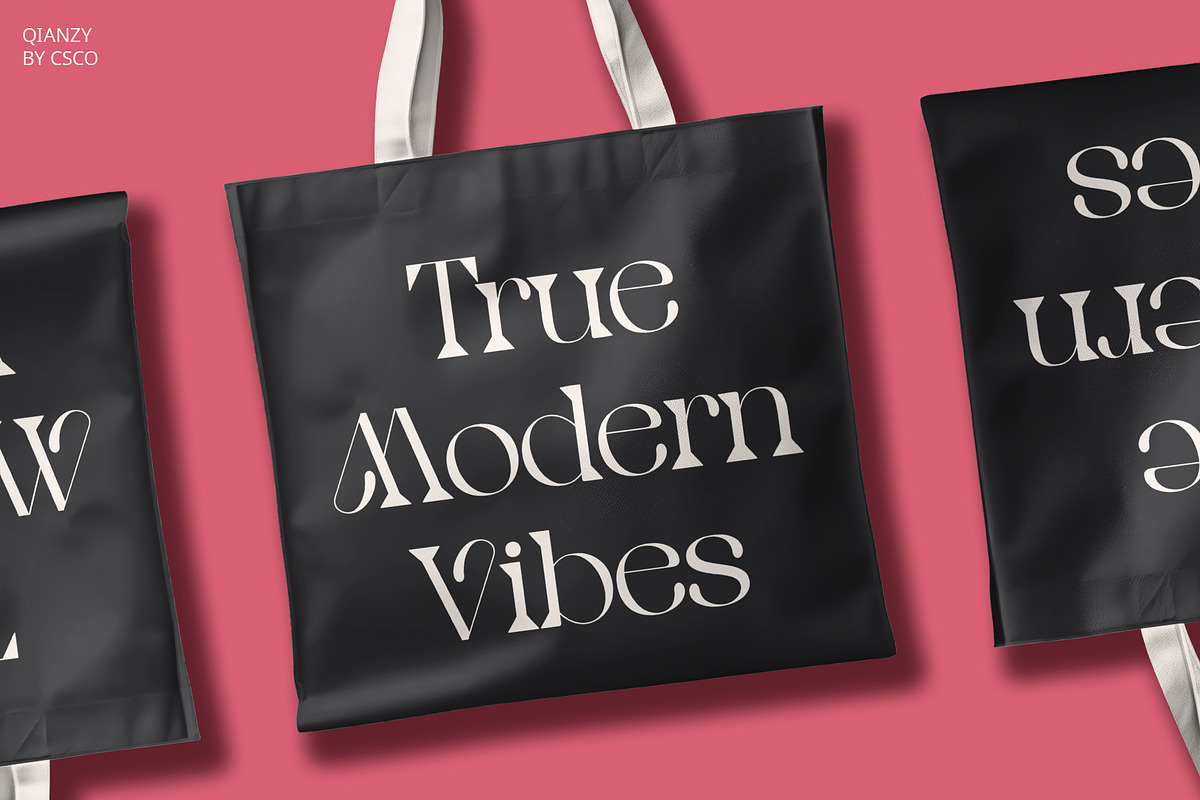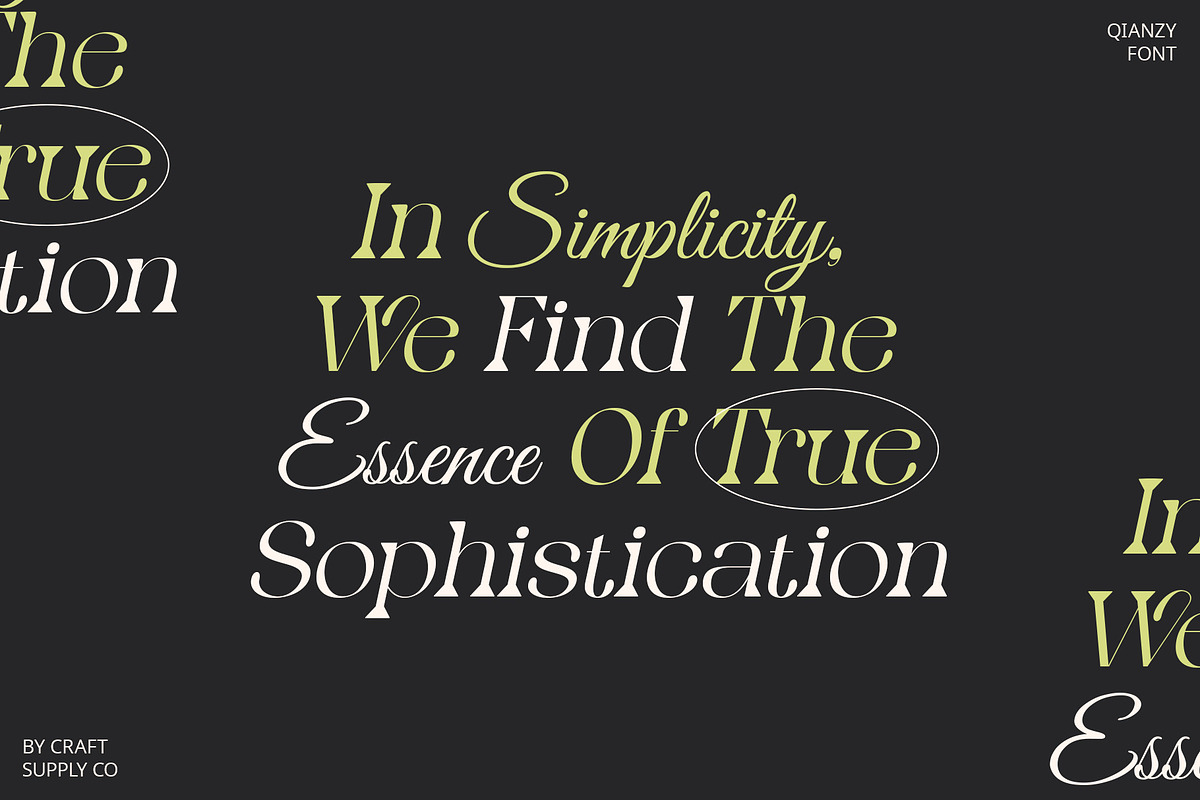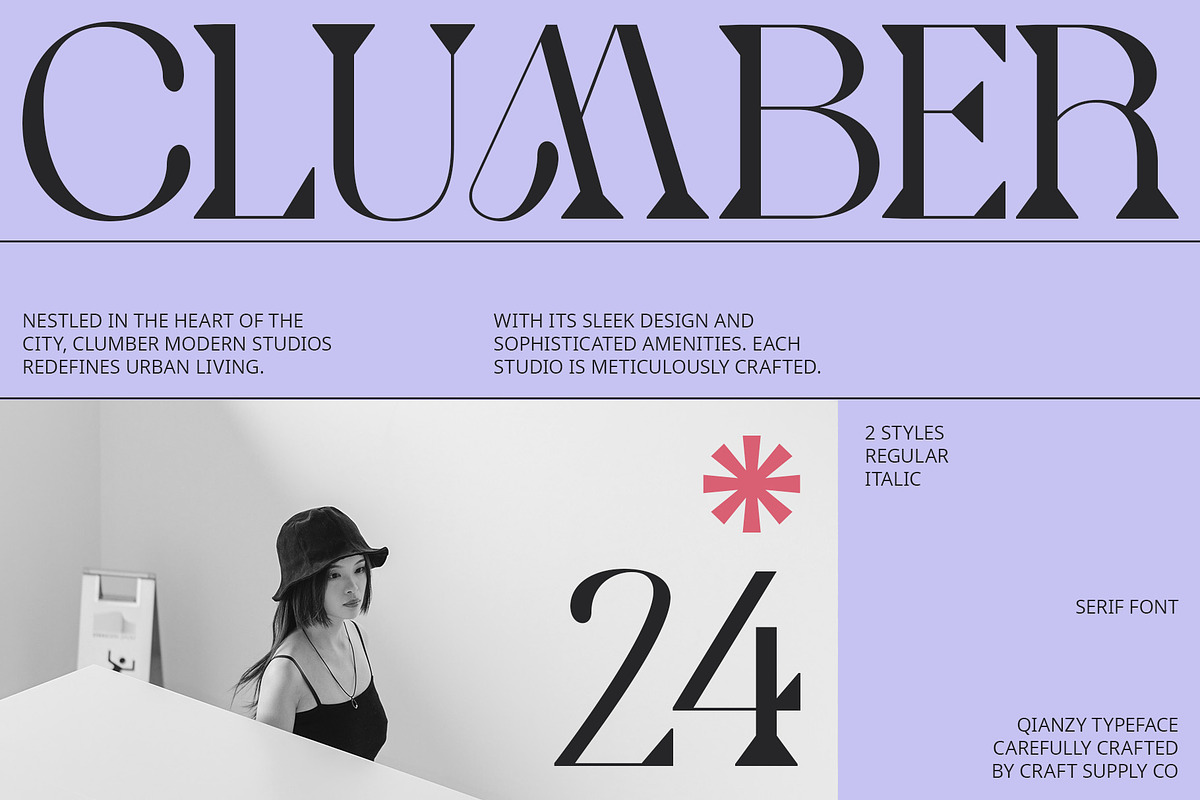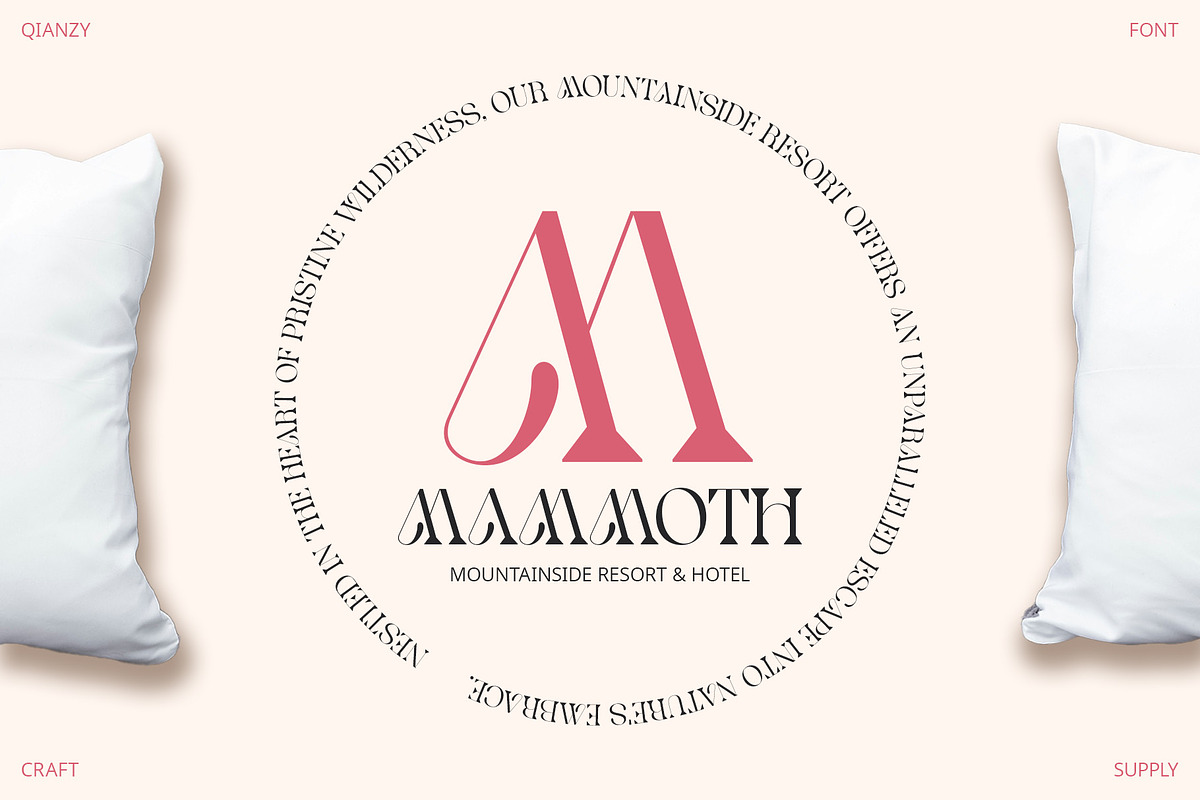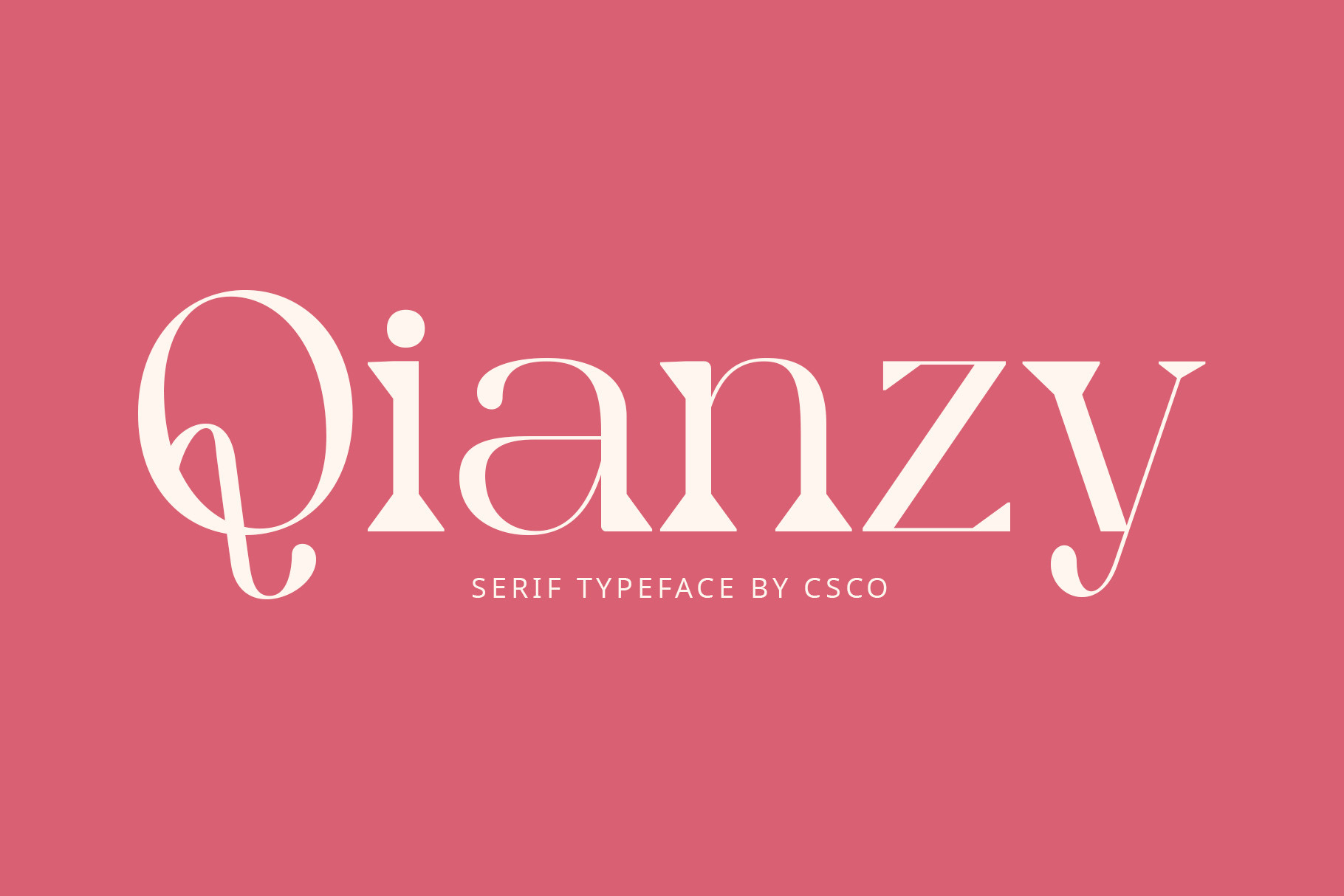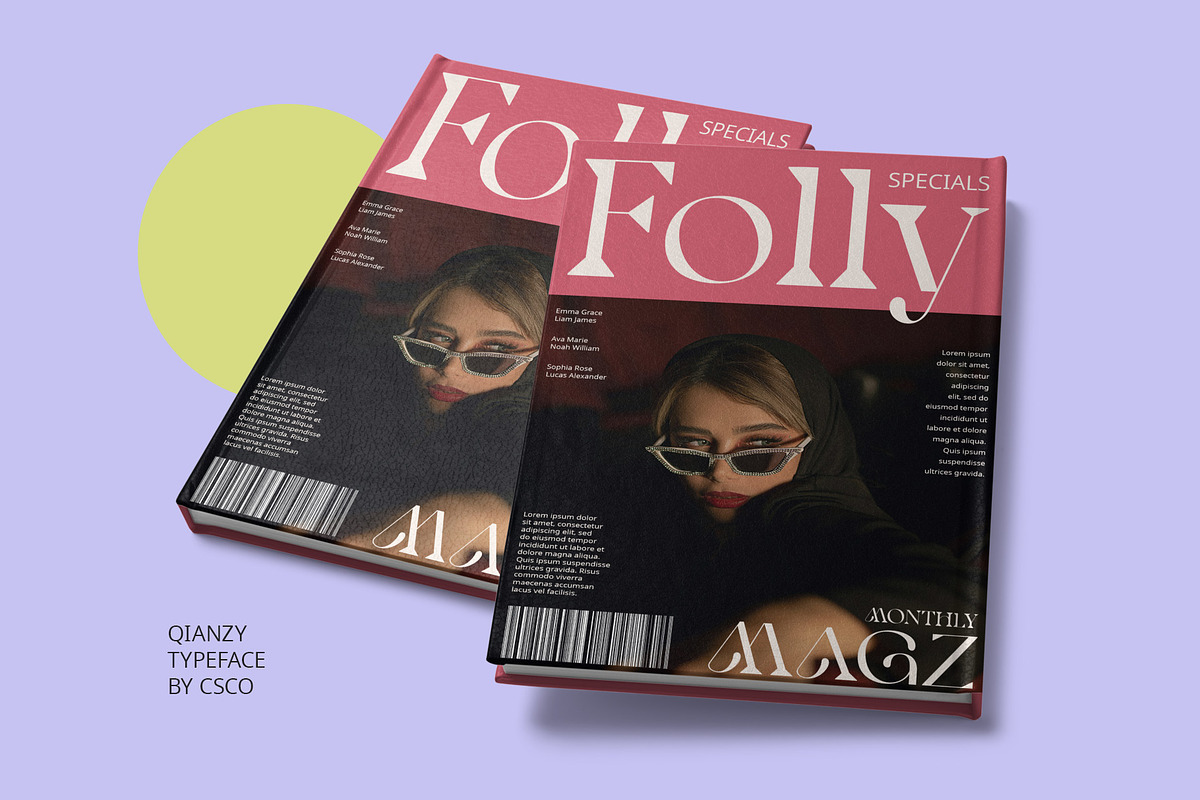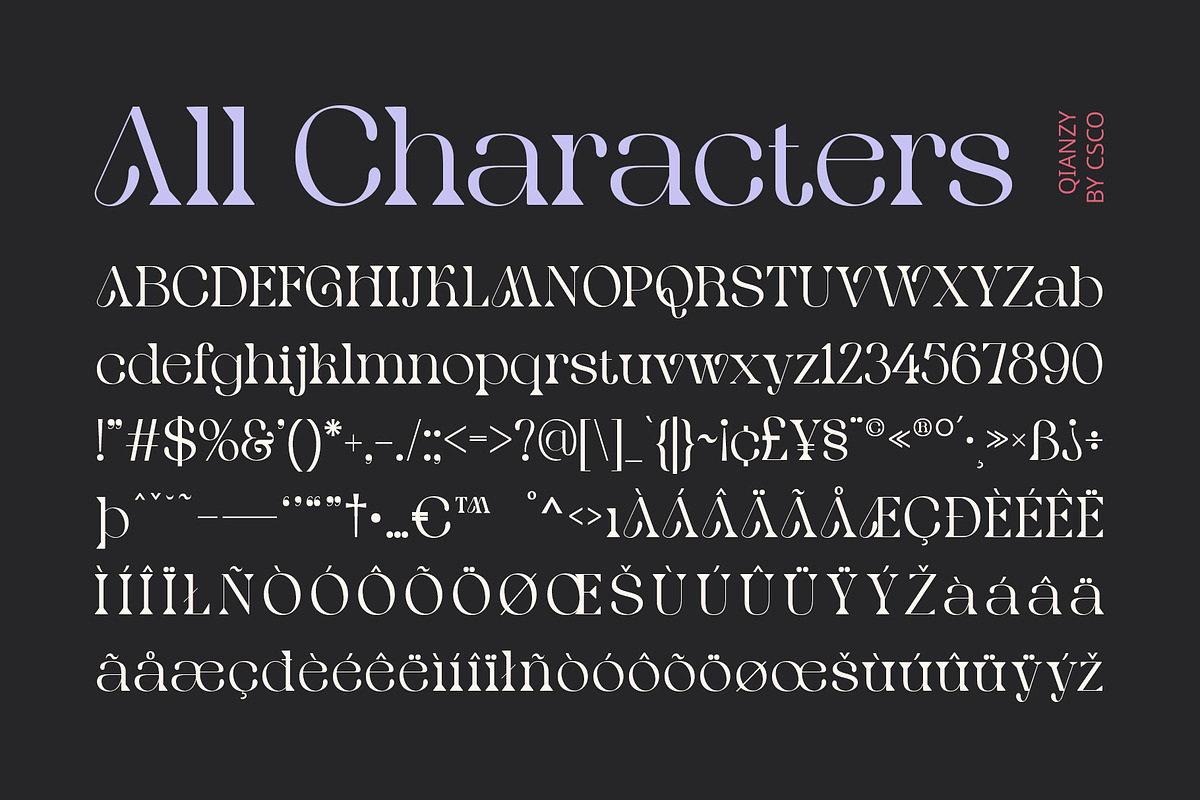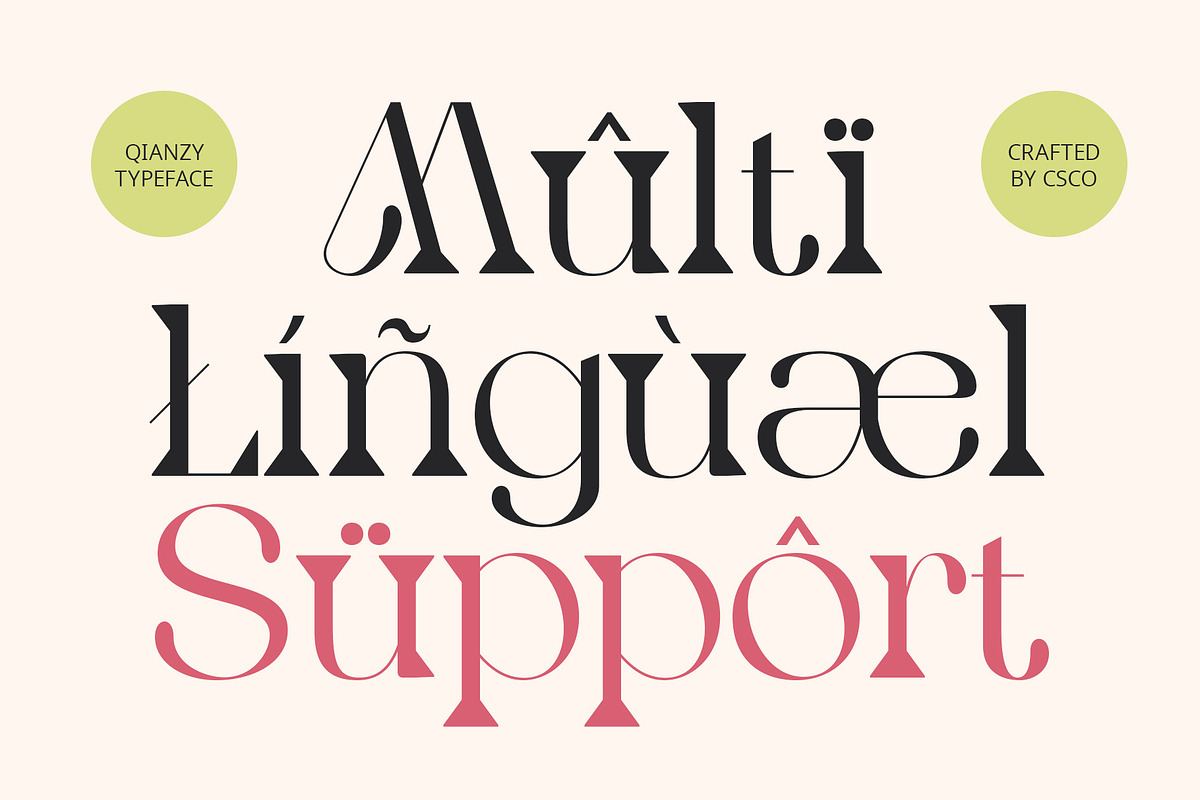
Qianzy – Elegant Font
Qianzy – Elegant Font: Modern Serif with Art Nouveau Touch
Unique and Elegant Qianzy is a modern serif font with an Art Nouveau touch. Offering a unique and elegant impression, this font’s modern design retains classic elements of Art Nouveau, creating an interesting and classy combination that stands out in any design.
Ideal for Classic Yet Contemporary Designs Perfect for headlines, banners, and other display purposes, Qianzy ensures your message is both seen and remembered. Its modern serif style, combined with an Art Nouveau touch, makes it a perfect choice for designs seeking a classic yet contemporary look.
Versatile and Stylish Despite its classic appearance, Qianzy remains versatile and stylish. Its serif font format makes it suitable for a wide range of projects, from branding to digital designs, where a font that combines classic elegance with modern design is essential for making a statement.
Perfect for Adding a Classic Touch Qianzy is ideal for projects requiring a font with a classic touch. Whether you’re designing a poster, logo, or website, this font will undoubtedly add a distinct and memorable element to your designs.